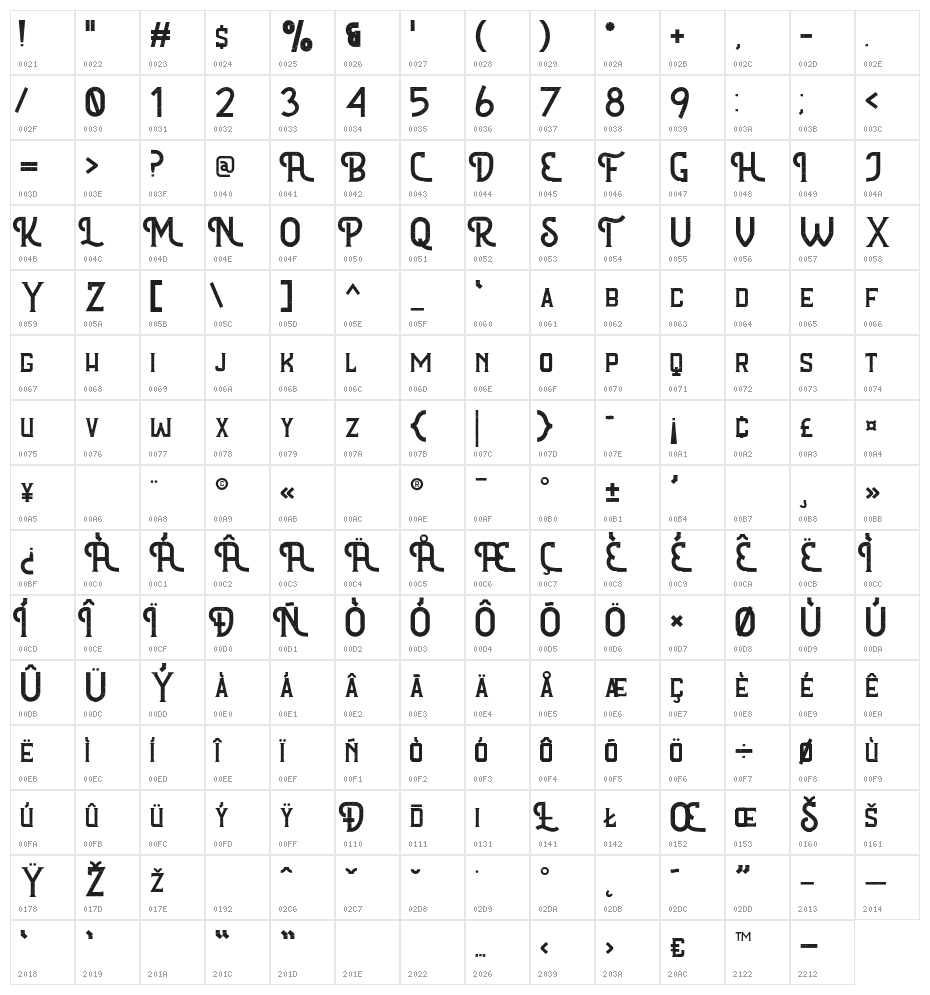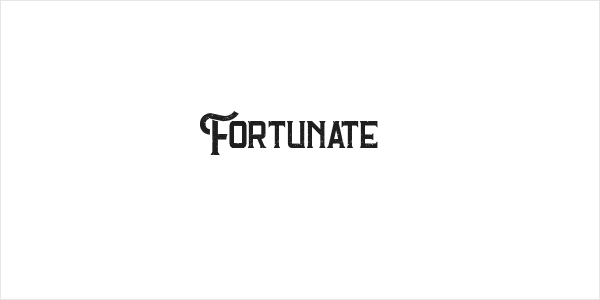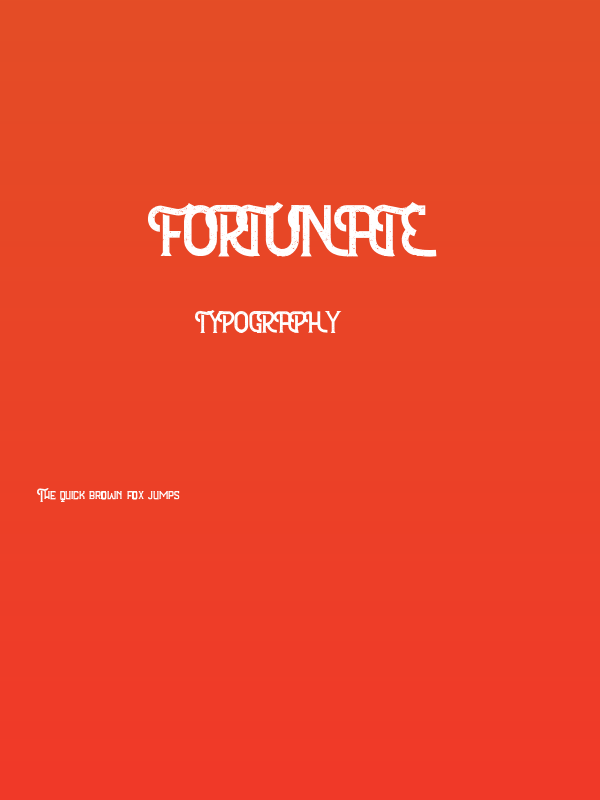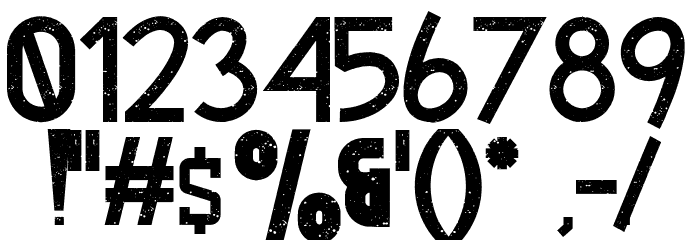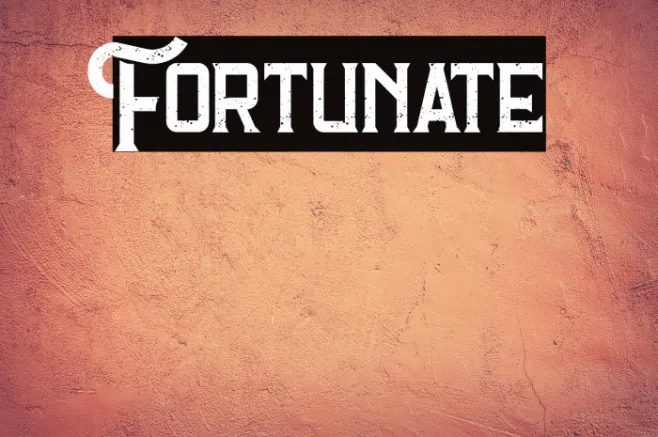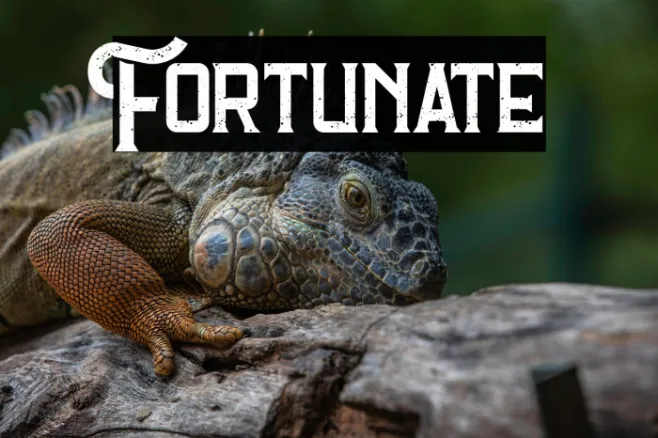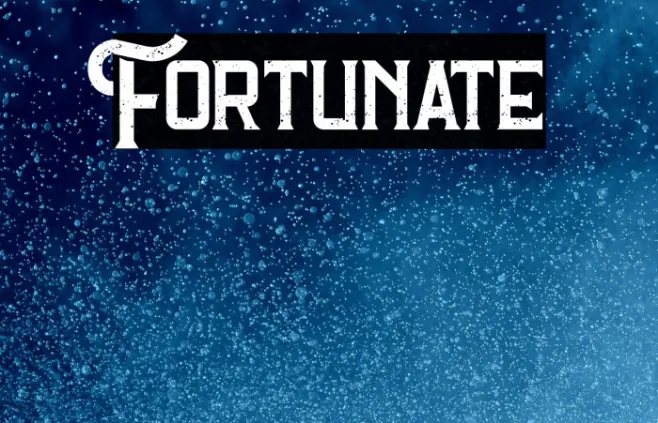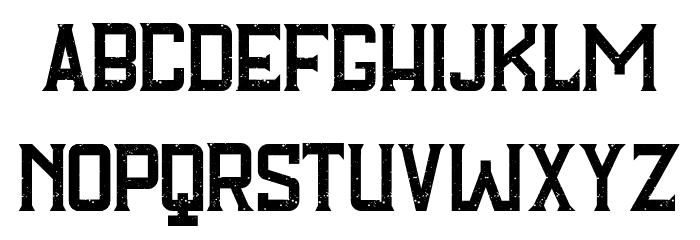
Fortunate Font
Fortunate Description
This font features a bold, decorative style with a distressed texture, giving it a vintage and rugged appearance. The uppercase letters have a unique, intertwined design that adds a sense of movement and flair. The lowercase letters maintain a more straightforward, geometric form, providing a nice contrast to the ornate uppercase. The numbers and special characters follow the same distressed and bold aesthetic, making them stand out. This font is ideal for projects that require a strong, eye-catching display typeface with a touch of nostalgia.